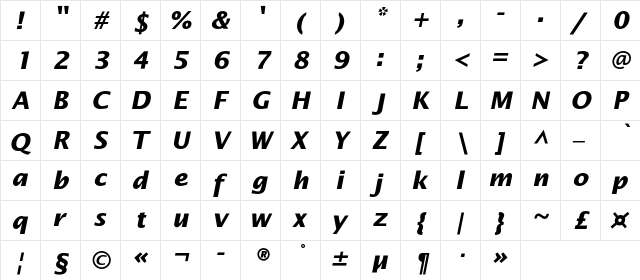
OfficeTypeSansC Bold Italic
Design Context for OfficeTypeSansC Typeface
OfficeTypeSansC takes a measured approach to typography — its balanced proportions and neutral character make it a reliable workhorse for both digital and print work. Its italic angle brings a sense of urgency and motion to the letterforms. Its bold stroke weight gives it real presence on the page.
Pro Tip: Use OfficeTypeSansC for emphasis, pull quotes, and subheadings where its slanted energy can add rhythm to the layout.